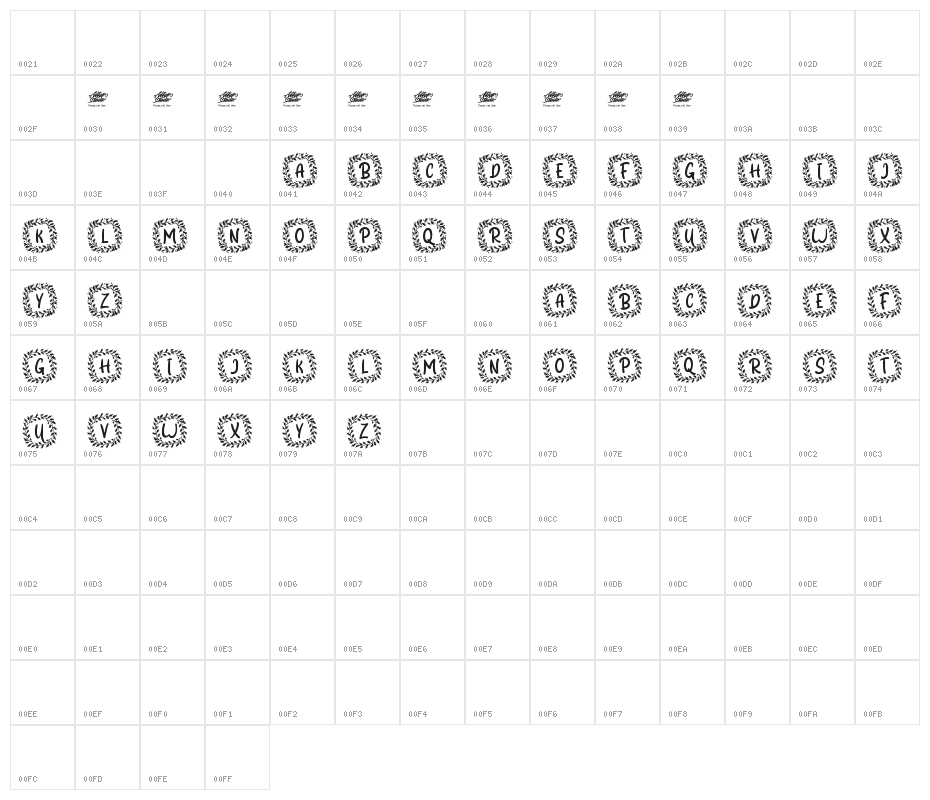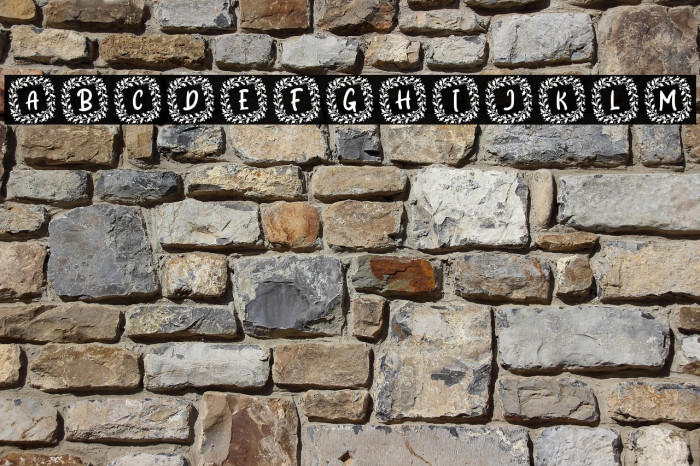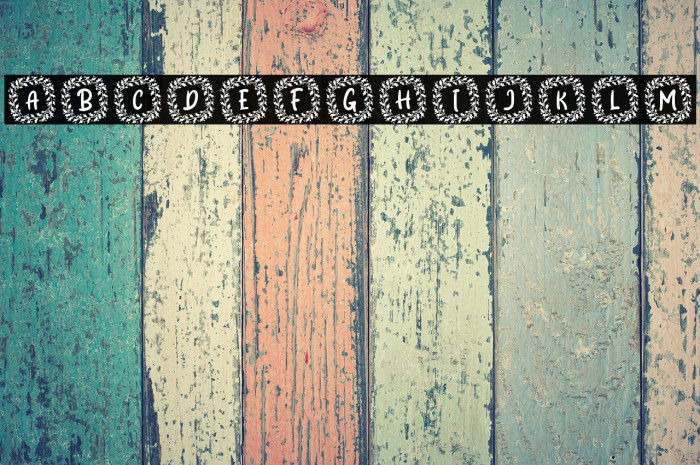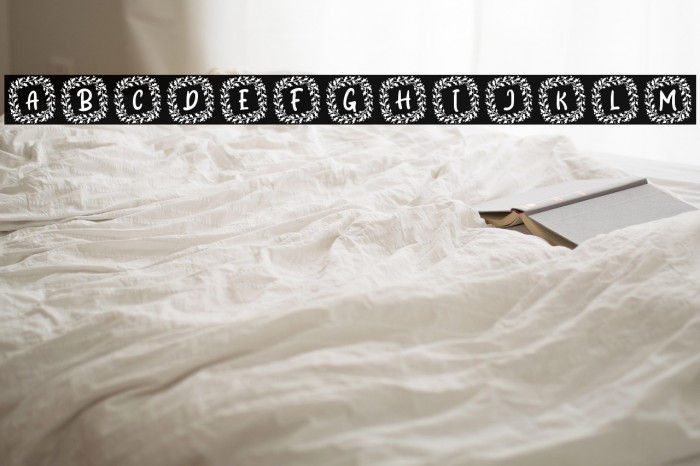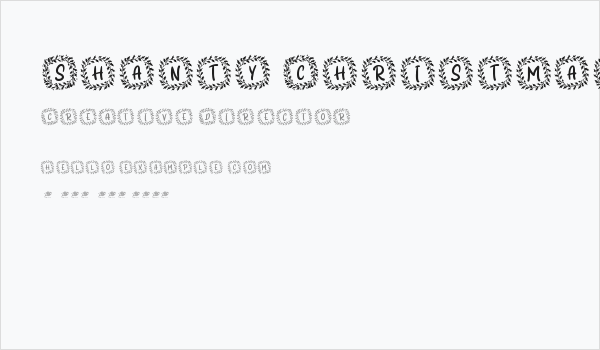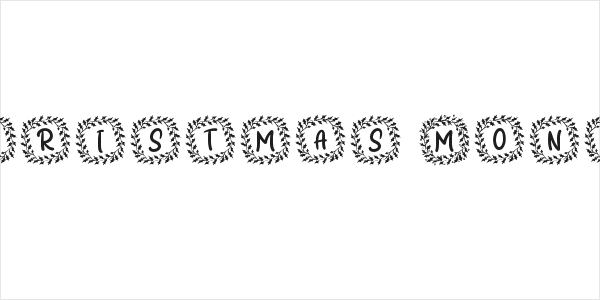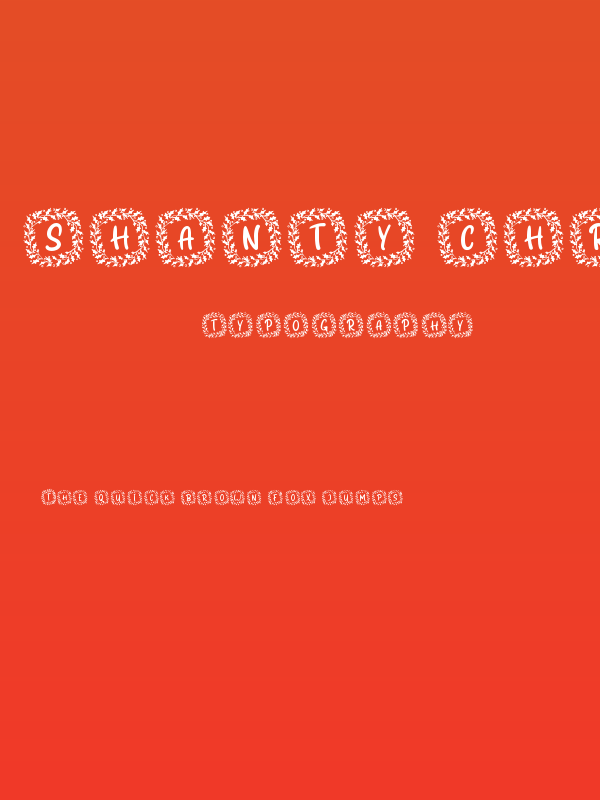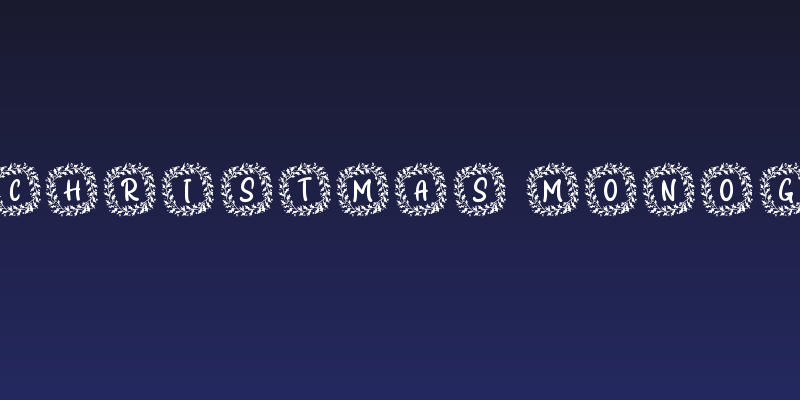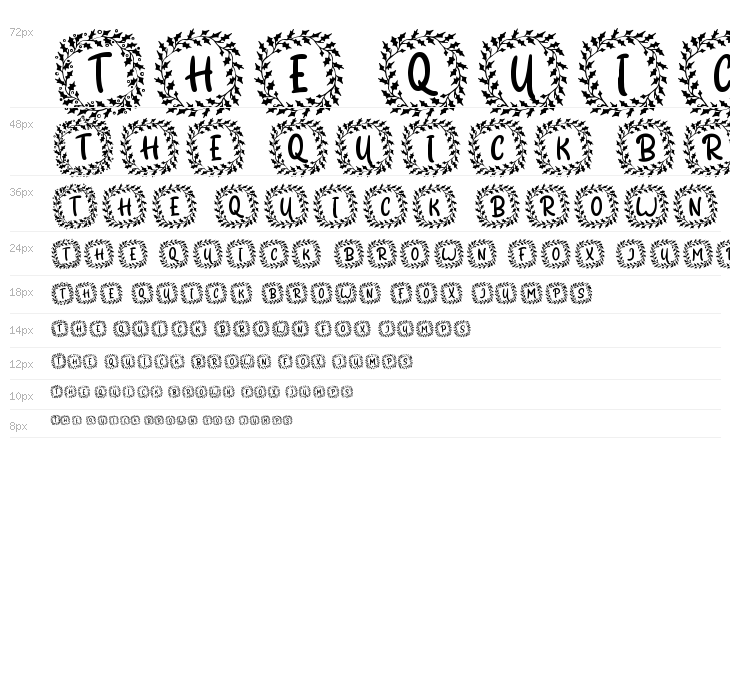
Shanty Christmas Monogram Reg Font
Shanty Christmas Monogram Reg Description
This font features uppercase letters encased in a decorative, leafy wreath design, giving it a festive and ornamental appearance. Each letter is bold and distinct, making it ideal for monograms or holiday-themed projects. The intricate border adds a touch of elegance and charm, reminiscent of traditional Christmas decorations. The font's style is both playful and sophisticated, making it versatile for various creative applications. Its unique design captures the essence of holiday cheer, making it perfect for seasonal branding, greeting cards, and personalized gifts.
Use CaseLogos, Headlines, Decorative text
Proposed ProjectsIdeal for holiday cards, monograms, festive branding, and personalized gifts.